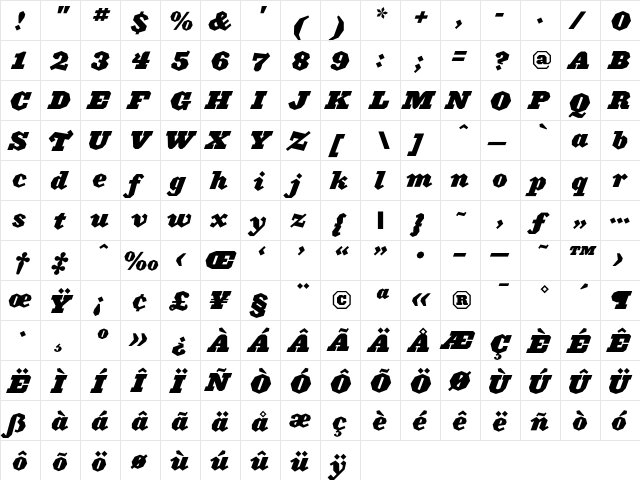
Acropolis HTF-Black-Italic
Design Context for Acropolis Typeface
Acropolis offers clean, dependable letterforms without strong stylistic allegiance, making it a practical choice for designers who need flexibility. The slanted form adds forward momentum and visual energy.
Pro Tip: Use Acropolis for emphasis, pull quotes, and subheadings where its slanted energy can add rhythm to the layout.